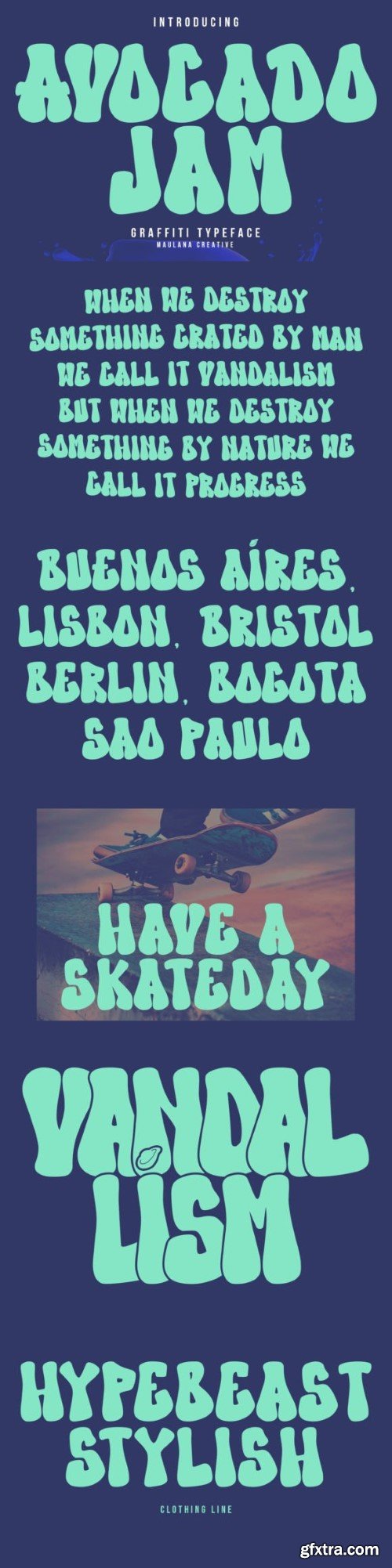
牛油果 Jam 字体
Avocado Jam is a cute and colorful display font. It embodies playfulness and authenticity and is the perfect choice for any children activity or school project. Add this chunky lettered font to your designs and notice how it makes them come alive!